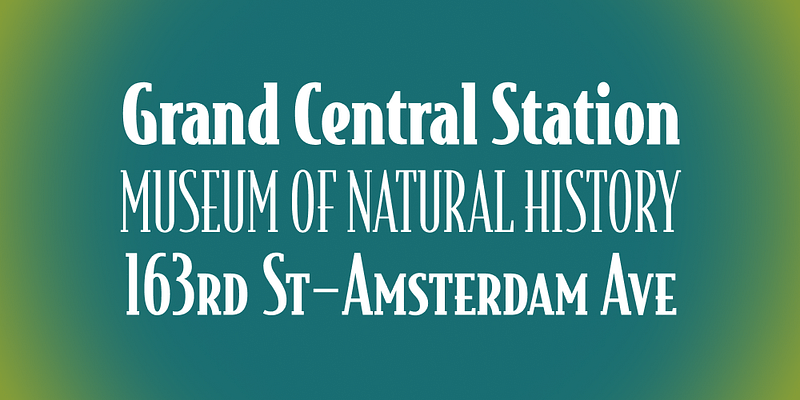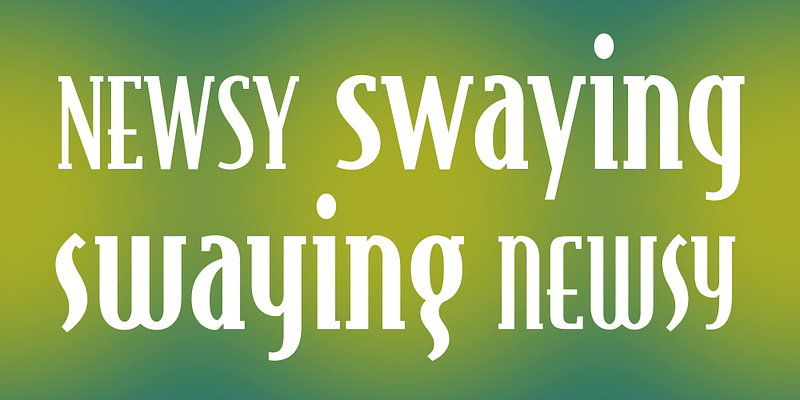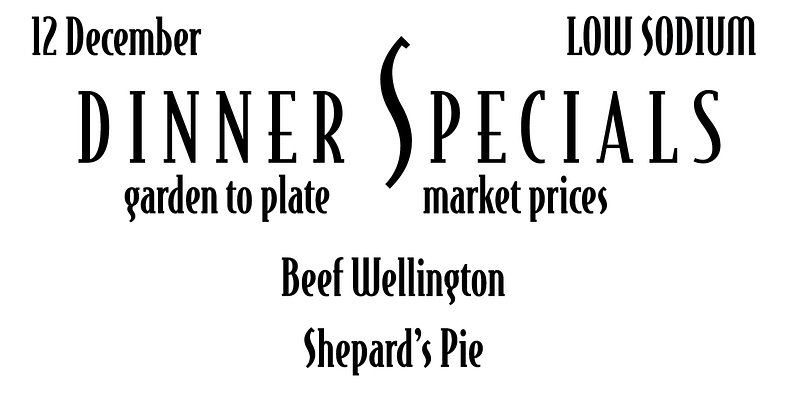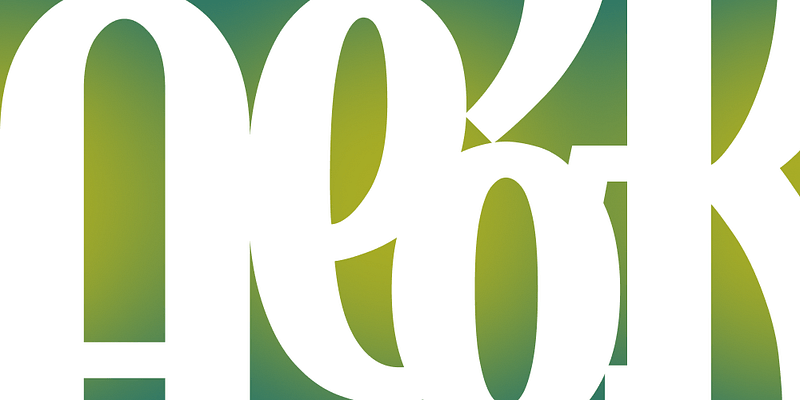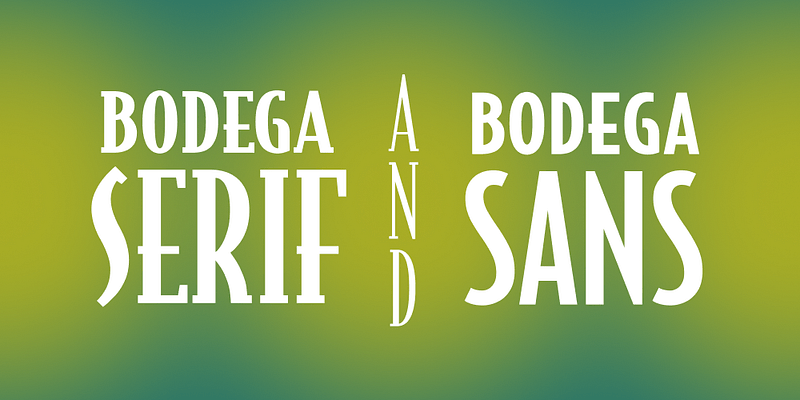
All the charm of Bodega Sans with the sparkle of contrasts and serifs, Bodega Serif expresses youthful enthusiasm.
Since the late 1980s, Greg Thompson has developed popular typefaces that are now part of our visual landscape and branding vocabulary for large, forward-thinking companies and agencies alike. With a sense of historical reference combined with modern visual considerations, the fonts from Greg Thompson Type speak to more than one specific period in time. Each family is a chameleon capable of enhancing a designer’s limitless ideas, from movie posters to food packaging, book publishing, and beyond.